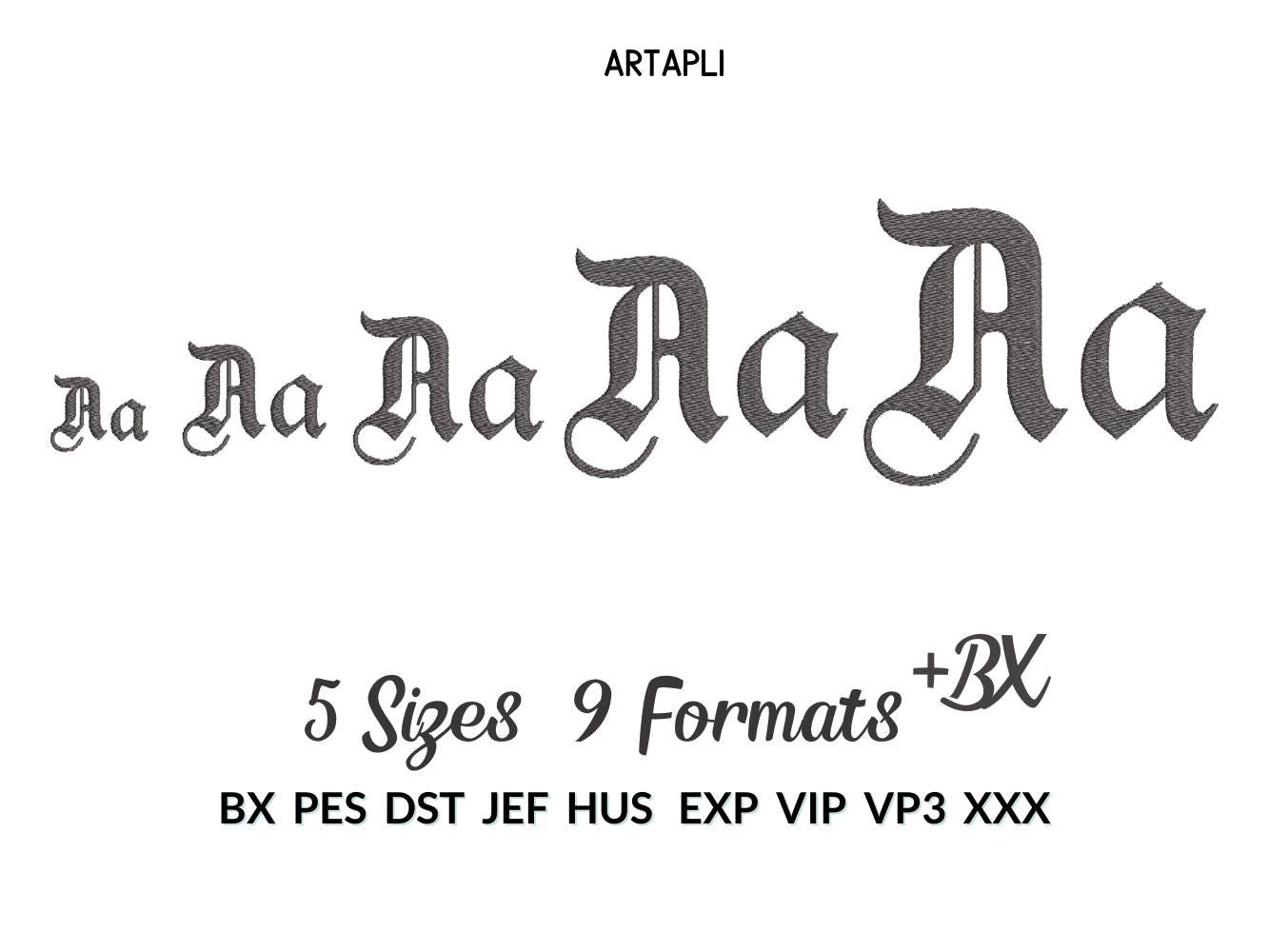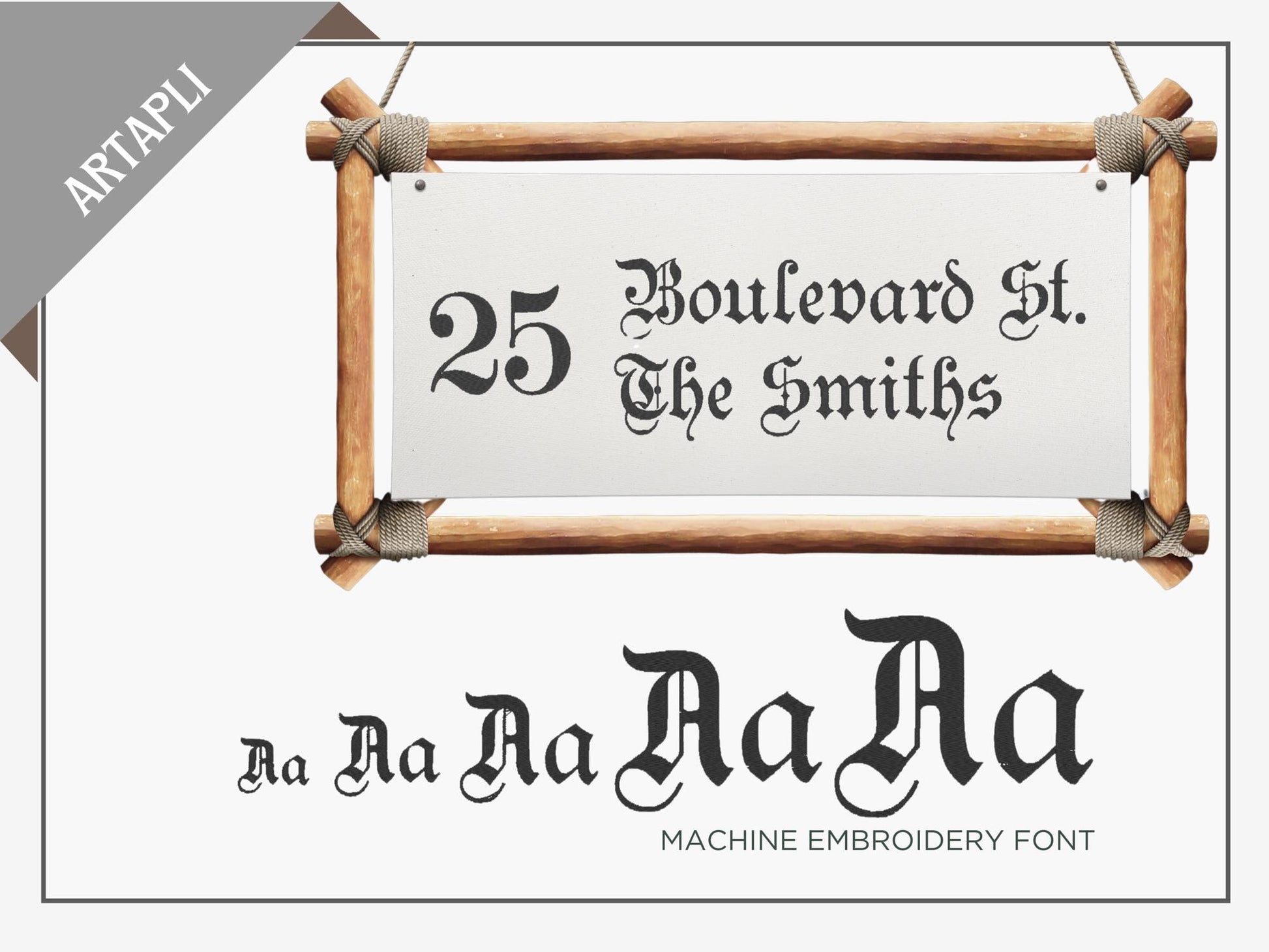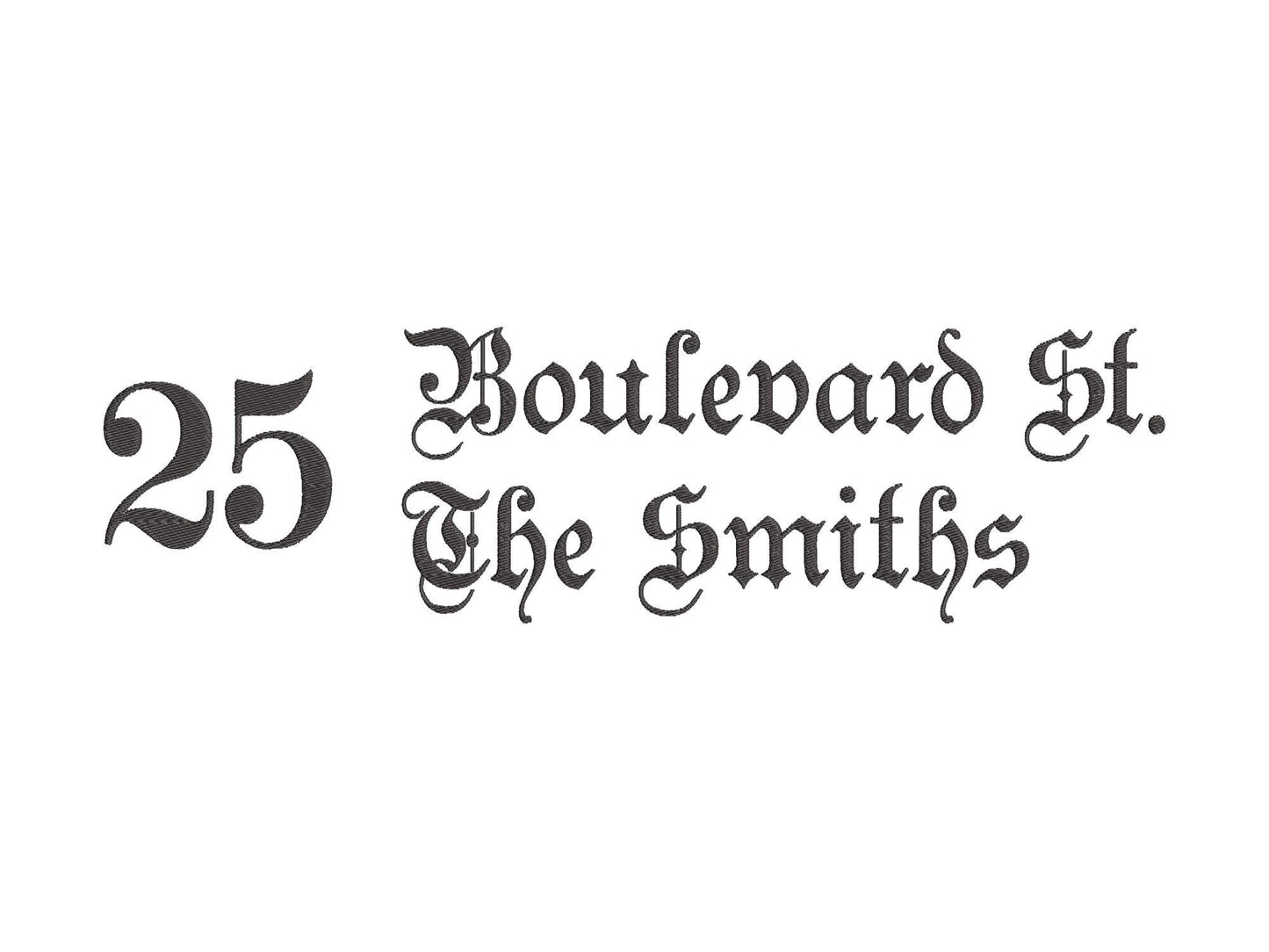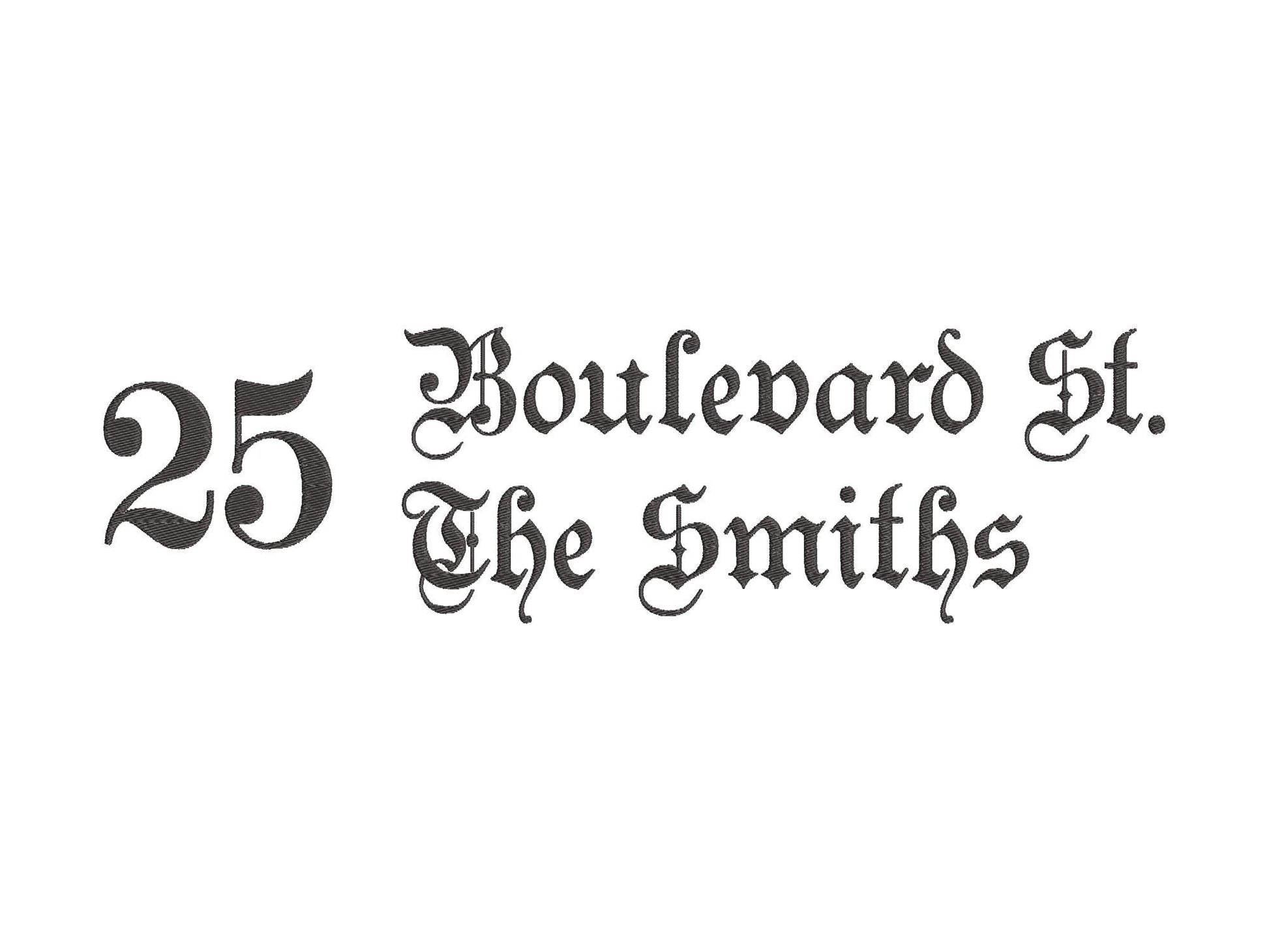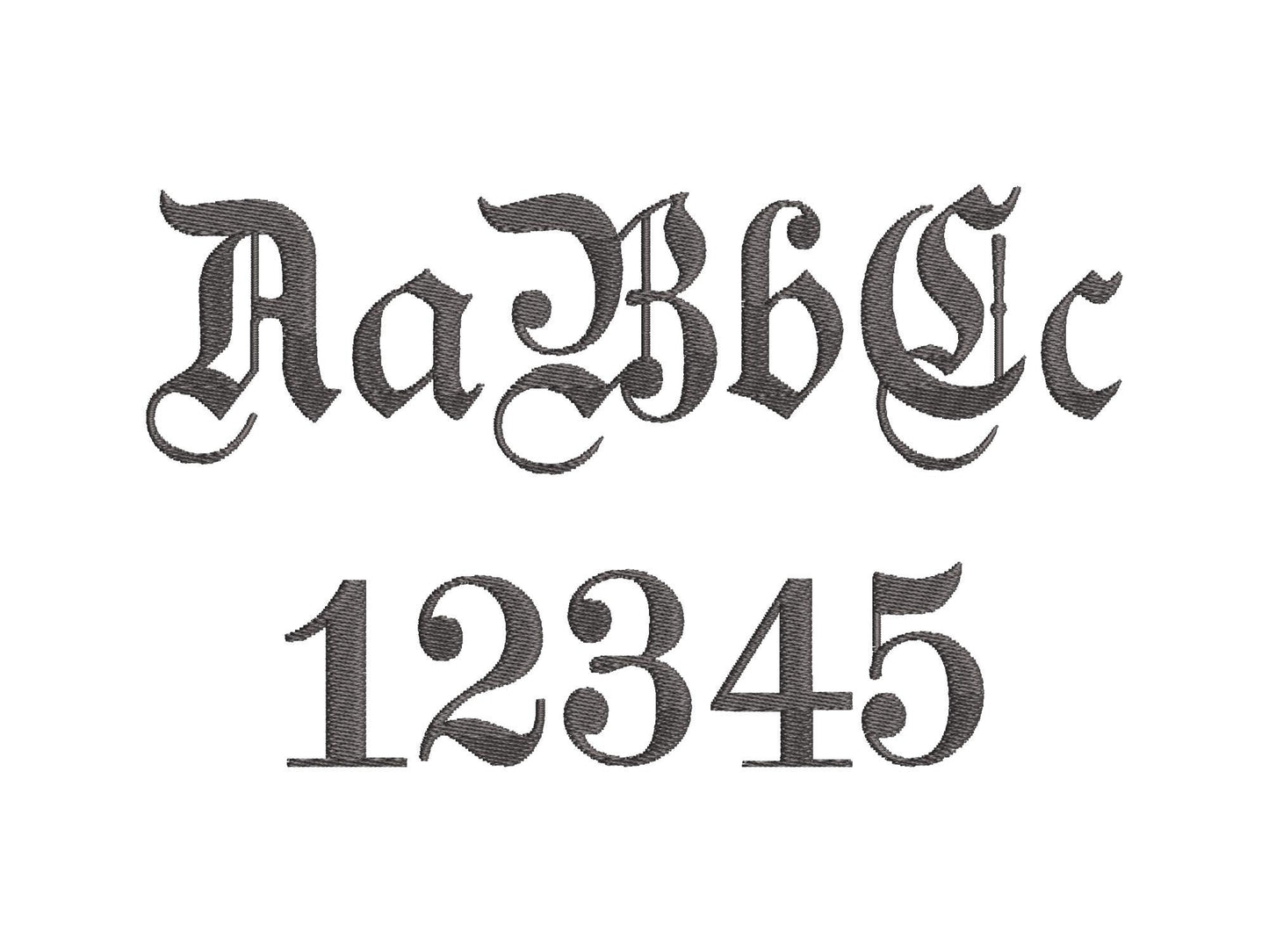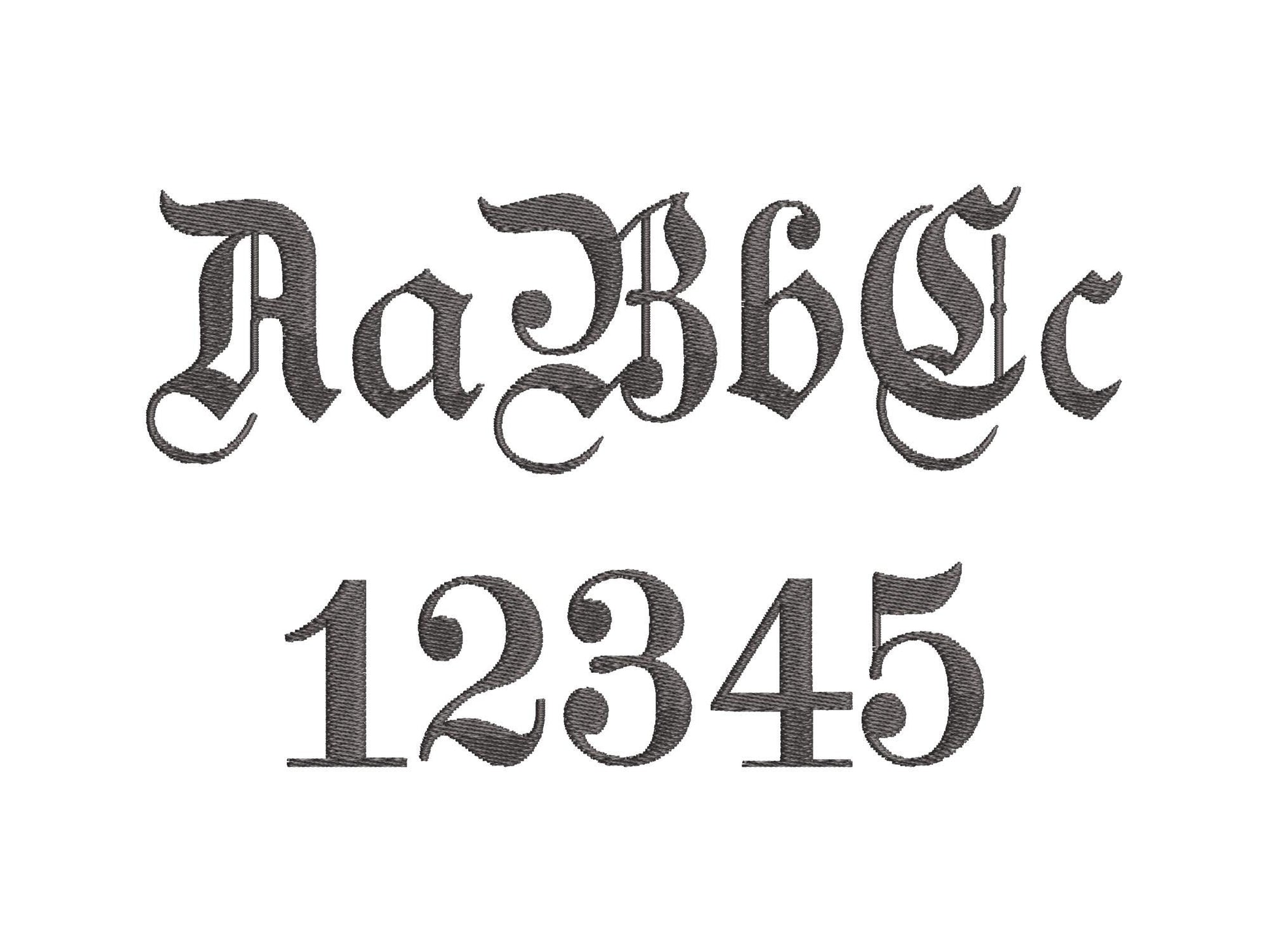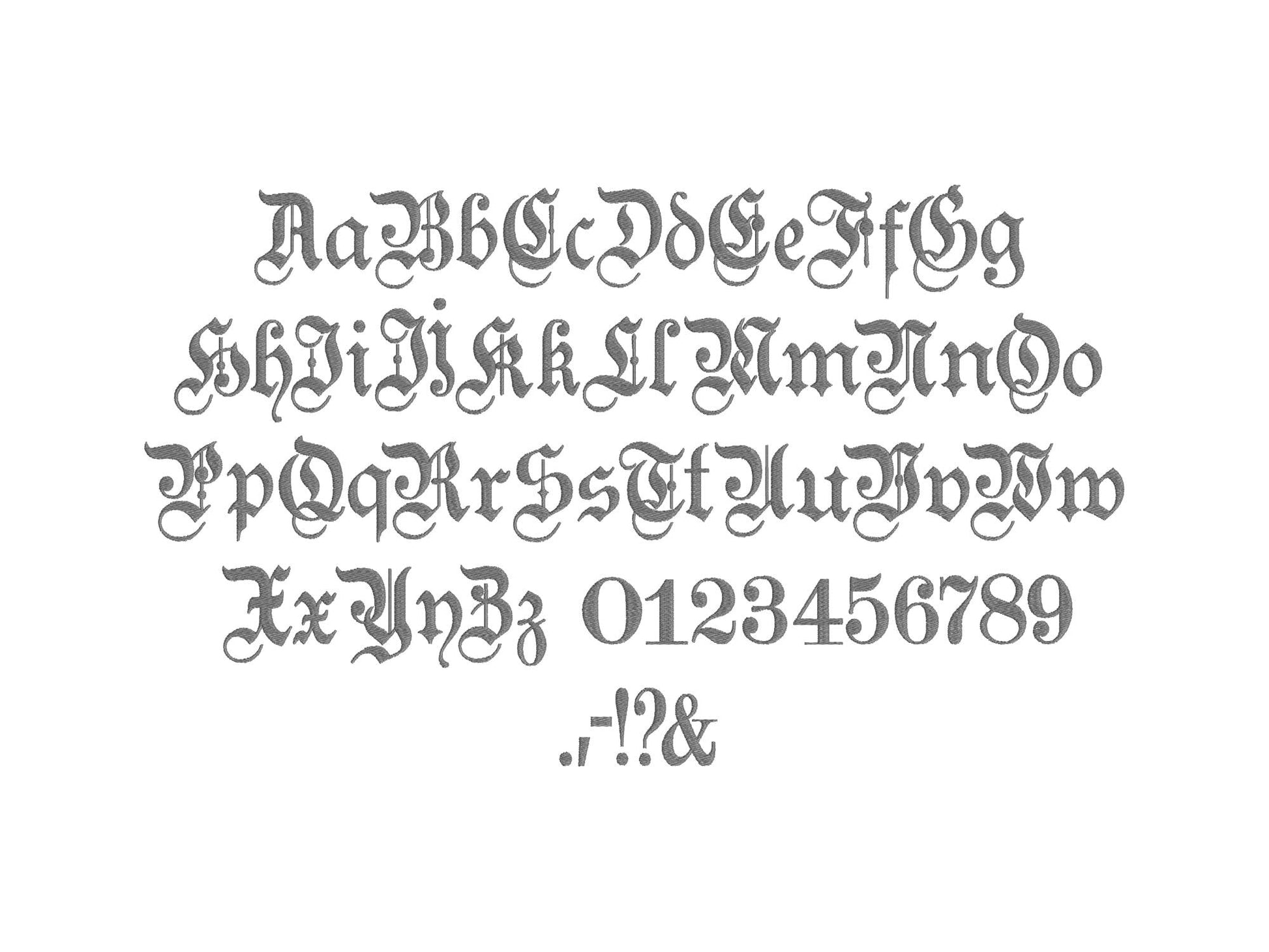
Or click to open the linkAn Old English gothic font in fill stitch, for classic names, monograms and titles with an old-fashioned look.
Uppercase and lowercase letters, numbers and punctuation in five sizes: 0.9, 1.3, 1.8, 2.6 and 3.3 inches.